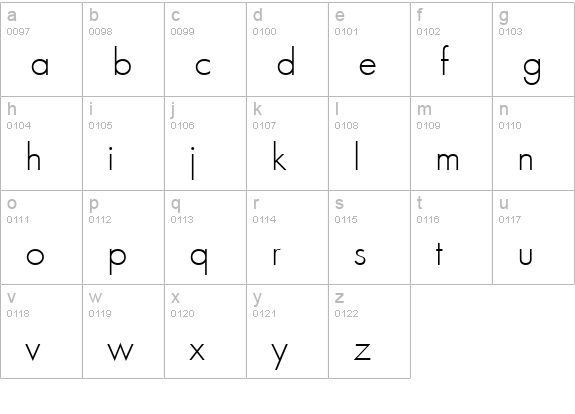
FuturaTEELig Font Details
Introducing FuturaTEELig - a modern and stylish font that effortlessly combines sleek lines with a touch of elegance. This versatile typeface is perfect for a wide range of design projects, from branding to editorial design, thanks to its clean and legible appearance. FuturaTEELig is a free font that offers a contemporary twist on a classic design, making it a must-have addition to any designer's toolkit. Its unique character shapes and striking presence on the page will instantly elevate your projects and capture the attention of your audience. This font is freely available to download at FontsMarket.com, where you can access this exceptional typeface and explore its full potential in your creative endeavors. Don't miss out on the opportunity to enhance your designs with FuturaTEELig - the perfect blend of modernity and sophistication.